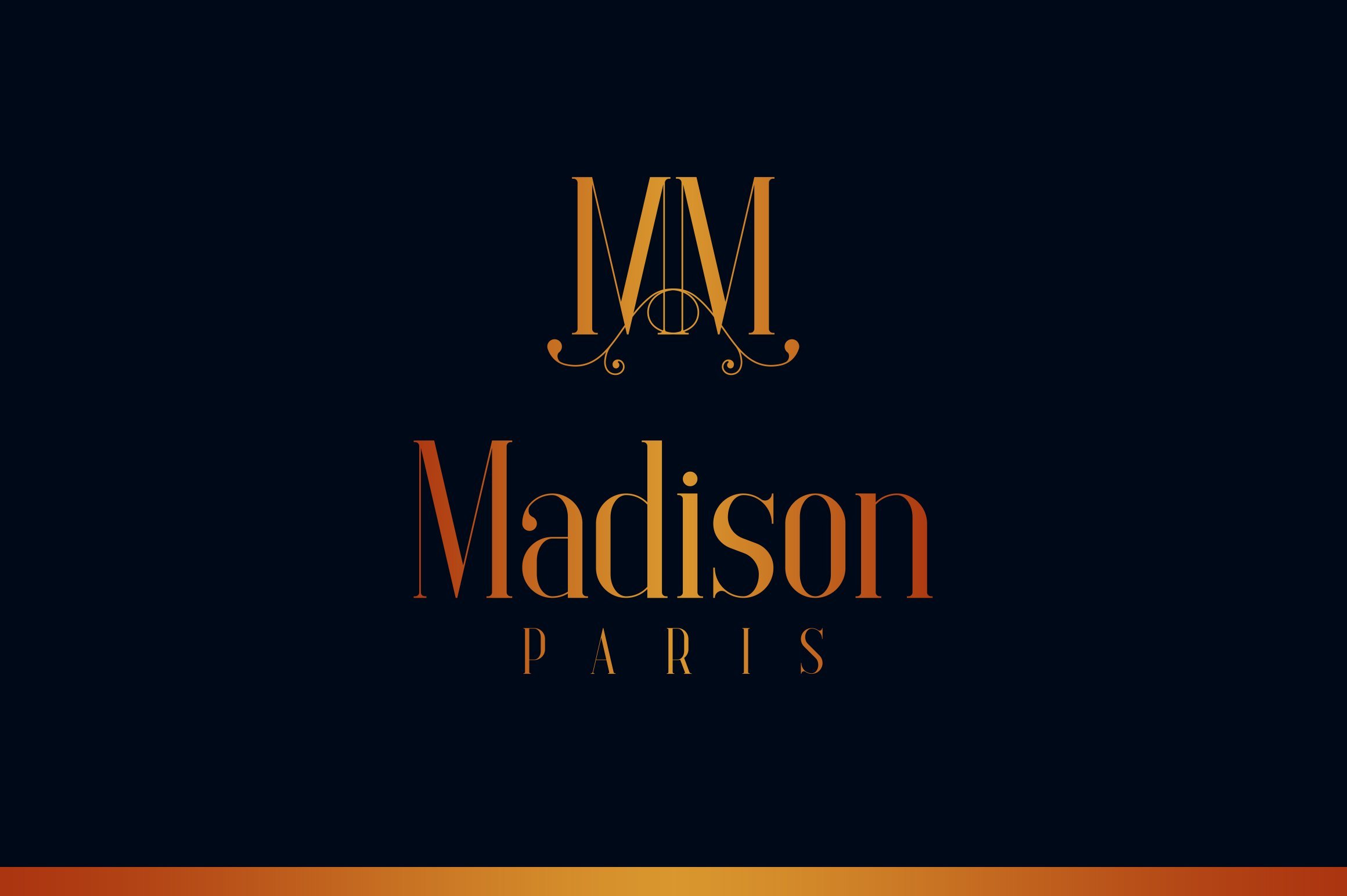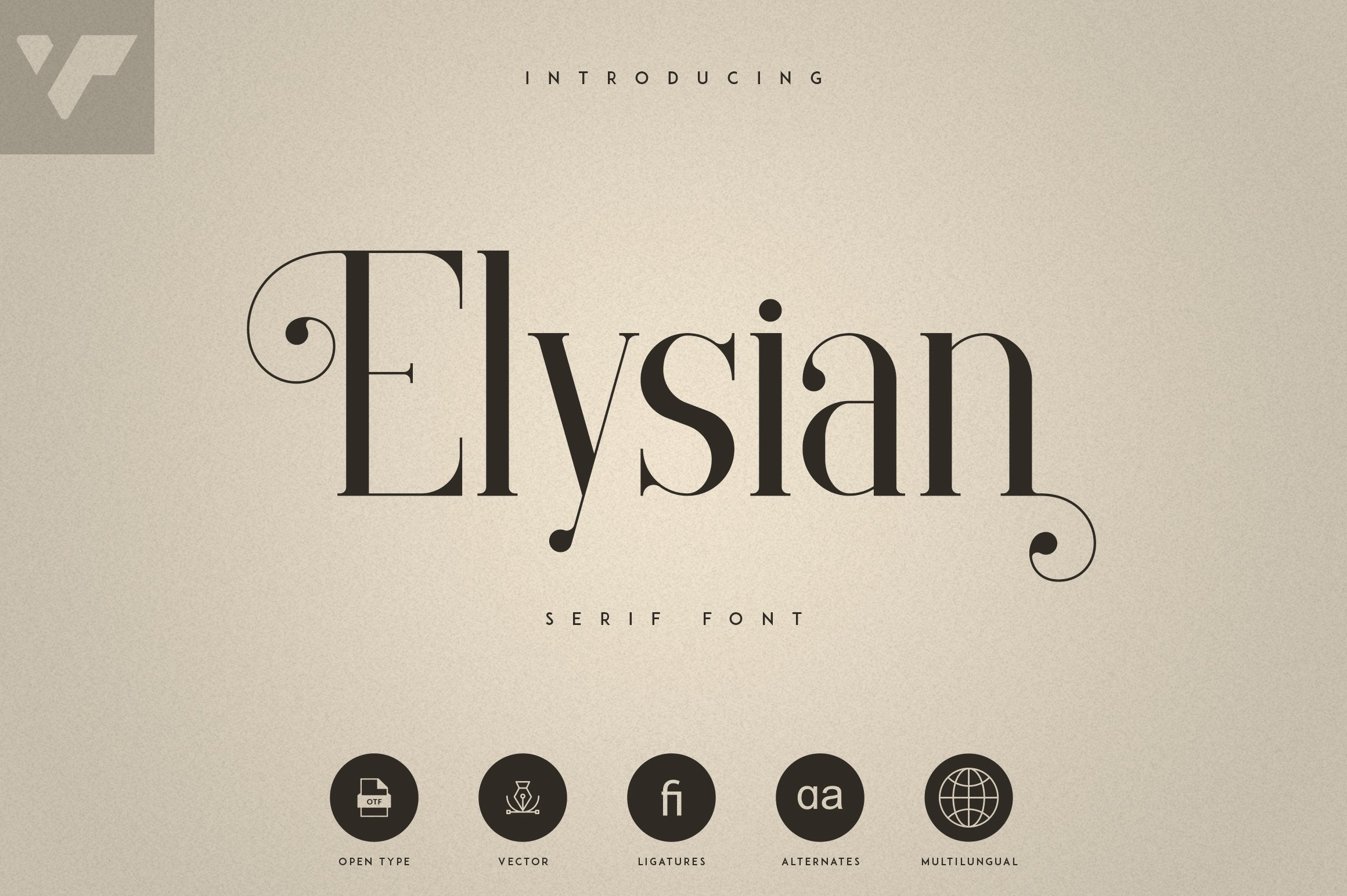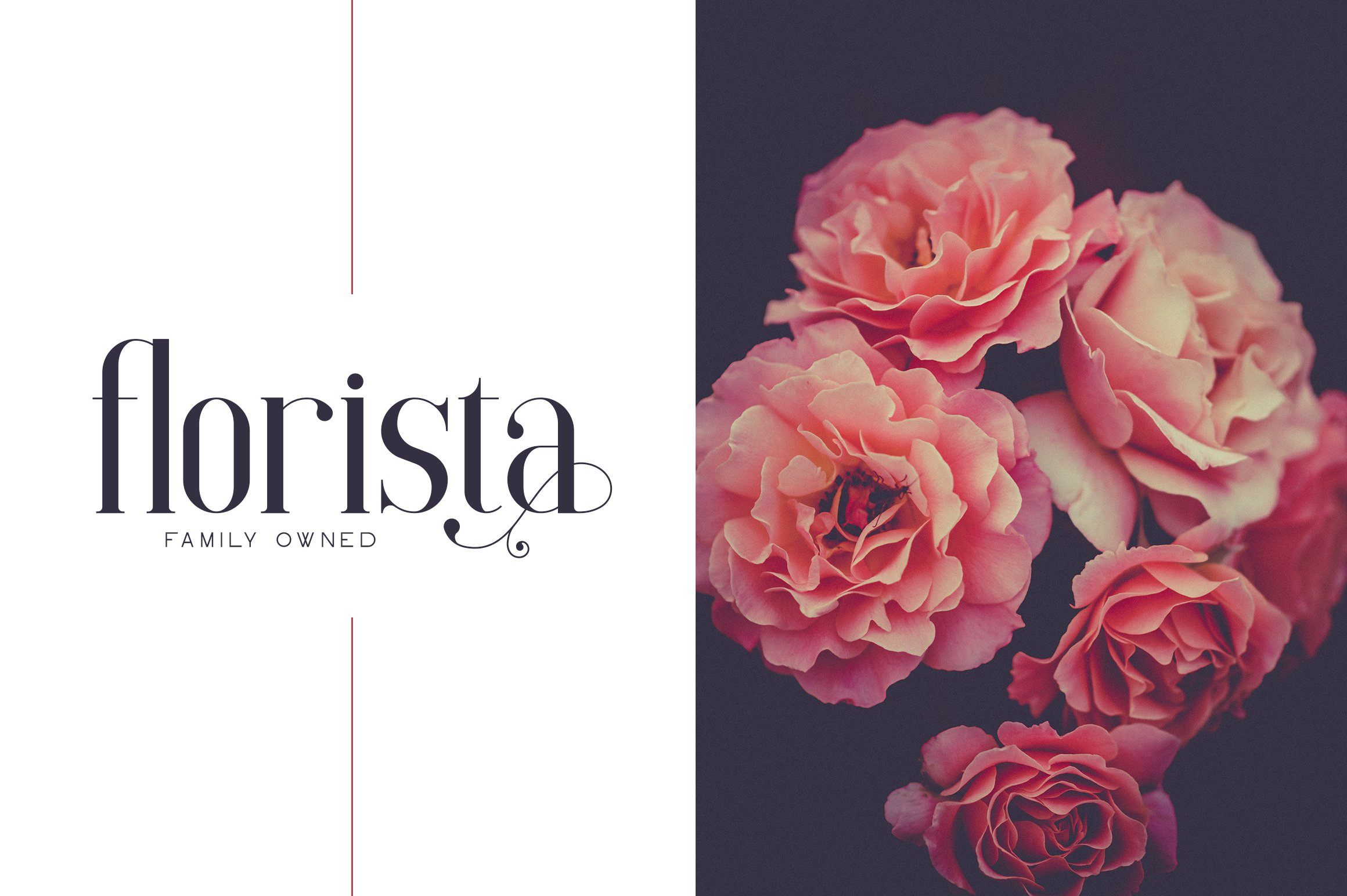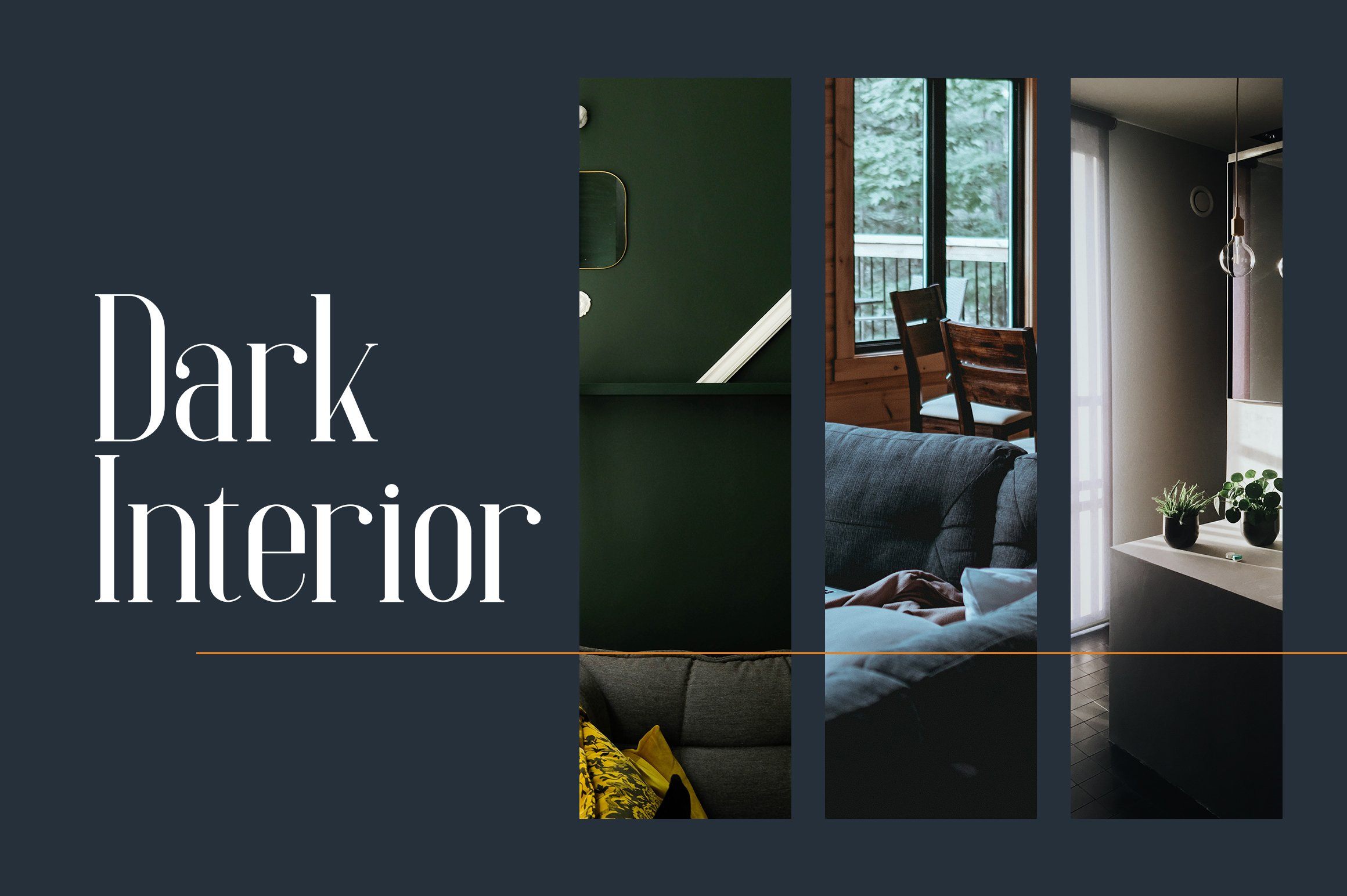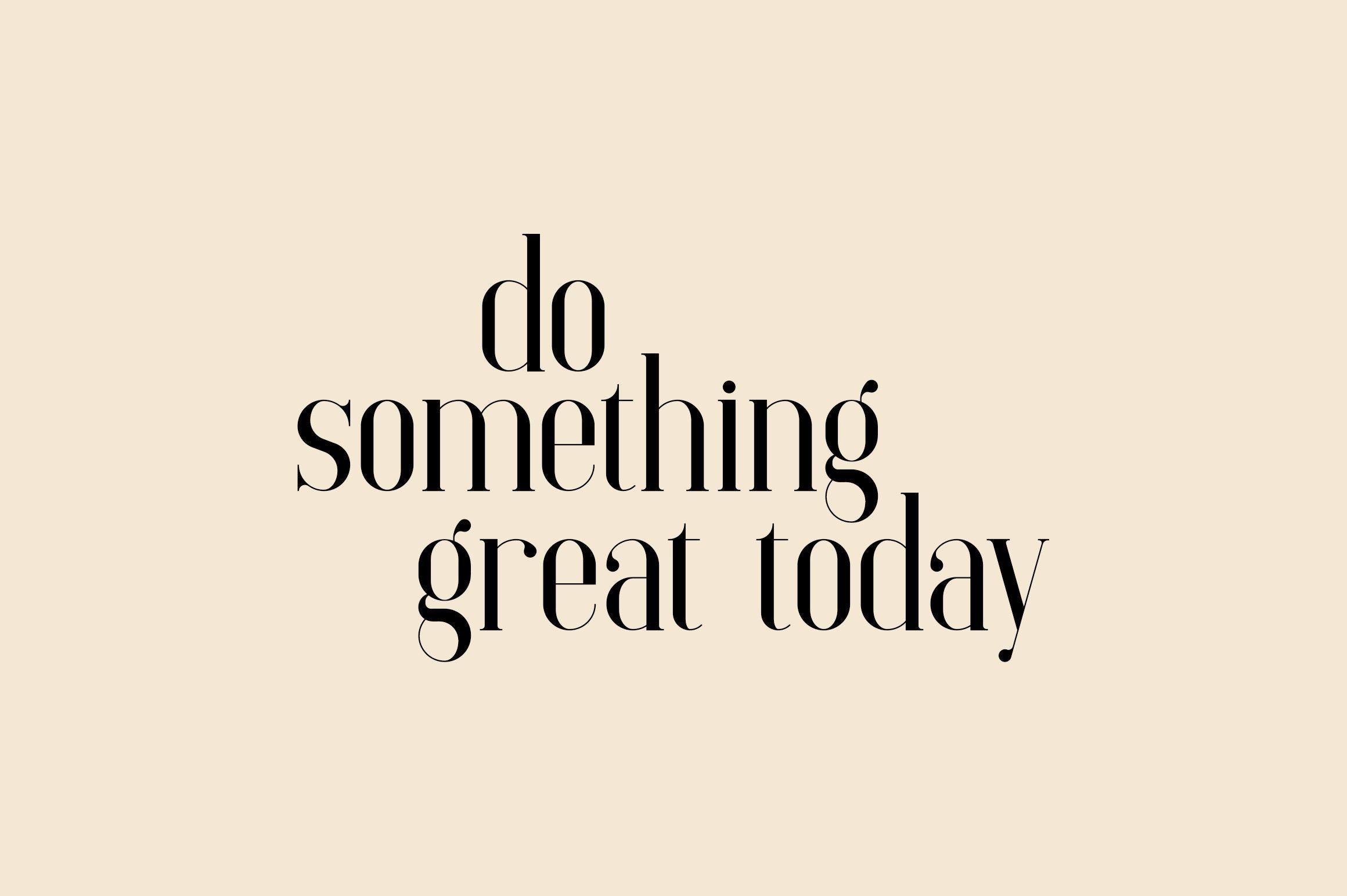
About Elysian Script
Introducing Elysian Script is natural, hand drawn font with alternates, ligatures and multilingual support. It’s a very versatile font that works great in large and small sizes. Elysian Script is perfect for branding projects, home-ware designs, product packaging, magazine headers – or simply as a stylish text overlay to any background image. Uppercase, lowercase, numeral, punctuation & Symbol Alternates Ligatures Multilingual How to access alternate glyphs? To access alternate glyphs in Adobe InDesign or Illustrator, choose Window Type & Tables Glyphs In Photoshop, choose Window Glyphs. In the panel that opens, click the Show menu and choose Alternates for Selection. Double-click an alternate’s thumbnail to swap them out. Feel free to contact me if you have any questions! Mock ups and backgrounds used are not included! Thank you! Enjoy!